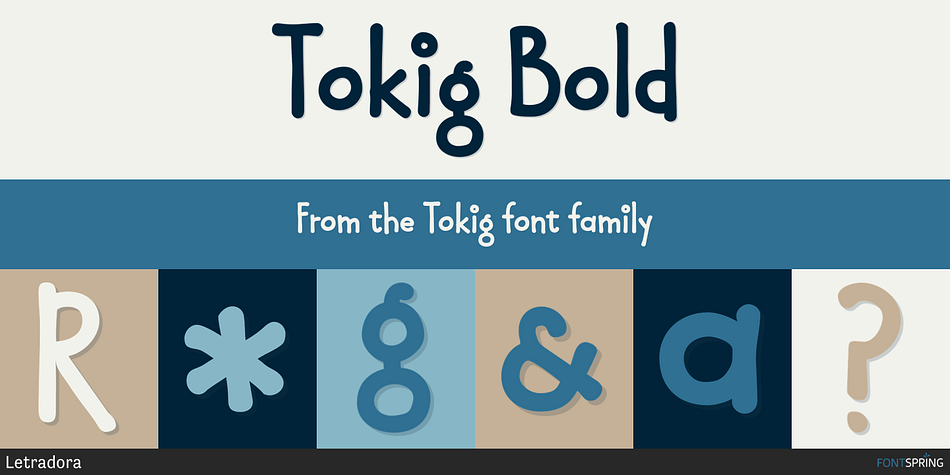
Tokig Bold
Tokig is a hand drawn and kids font family. This typeface has four styles and was published by Letradora.
Tokig is a fun, whimsical font with varying heights, yet very legible and with a very complete character set.